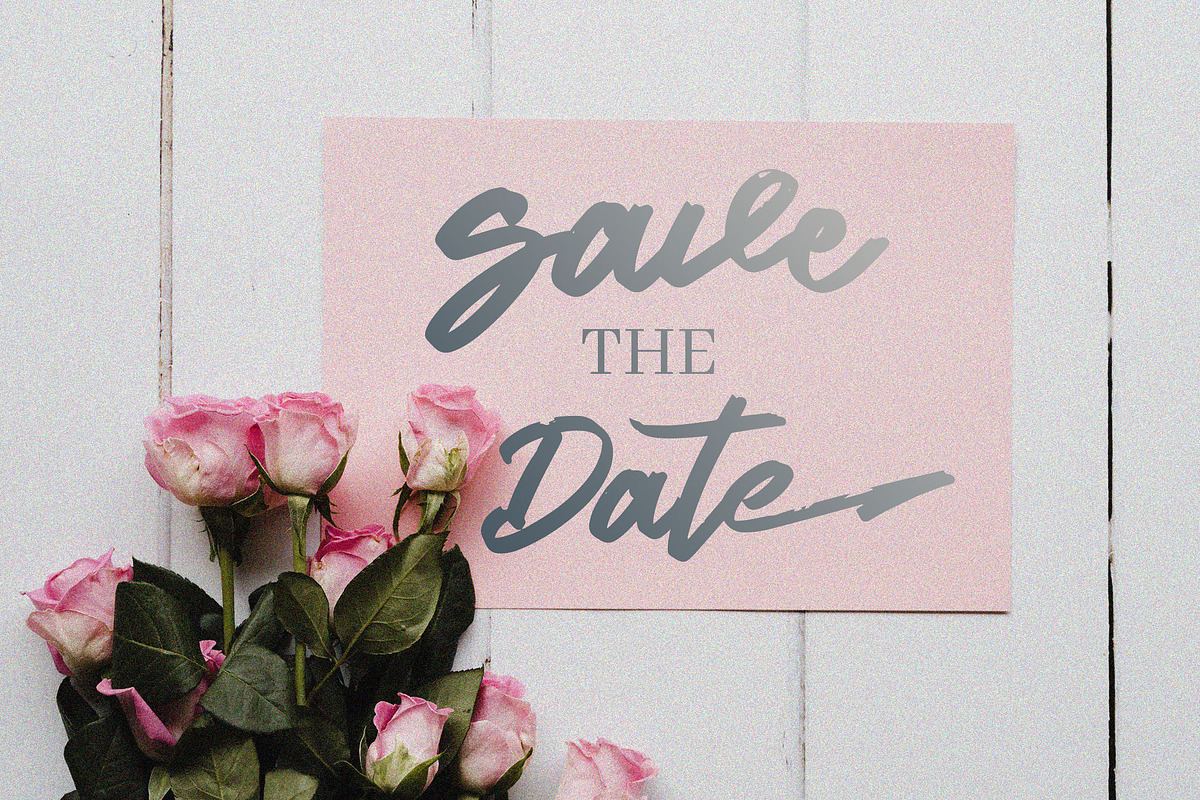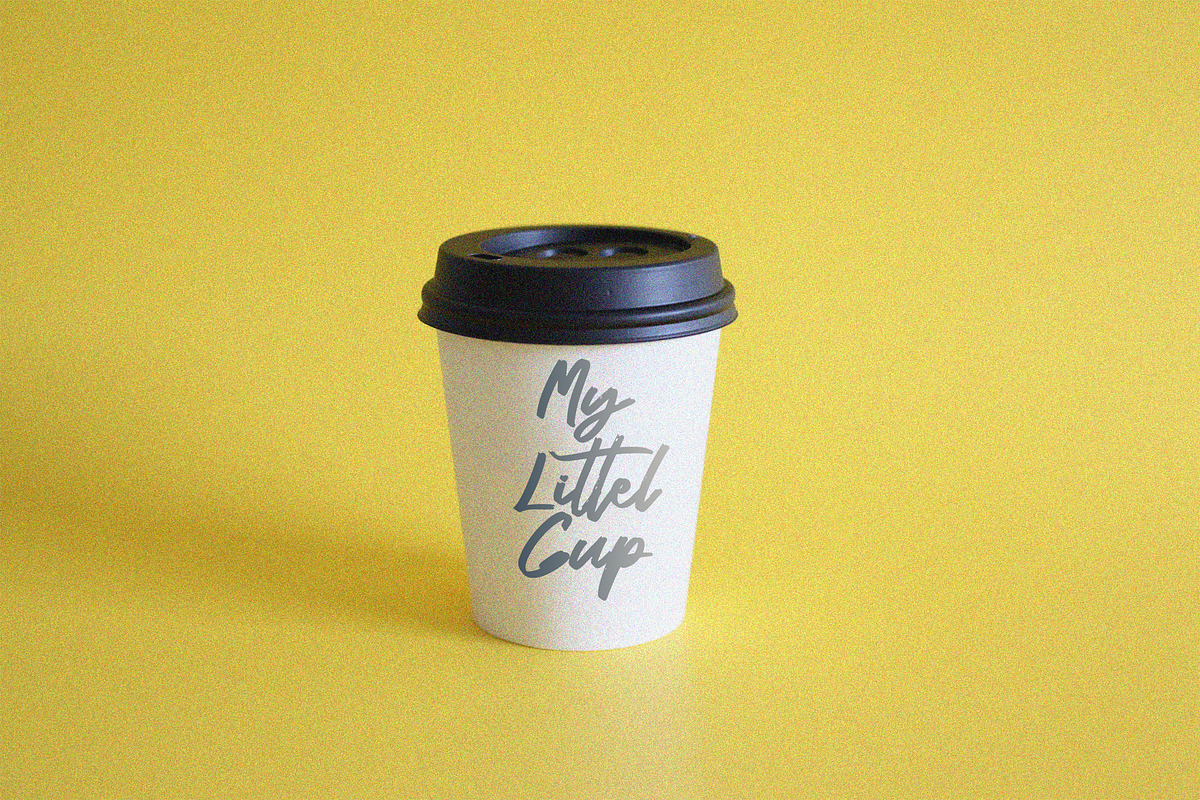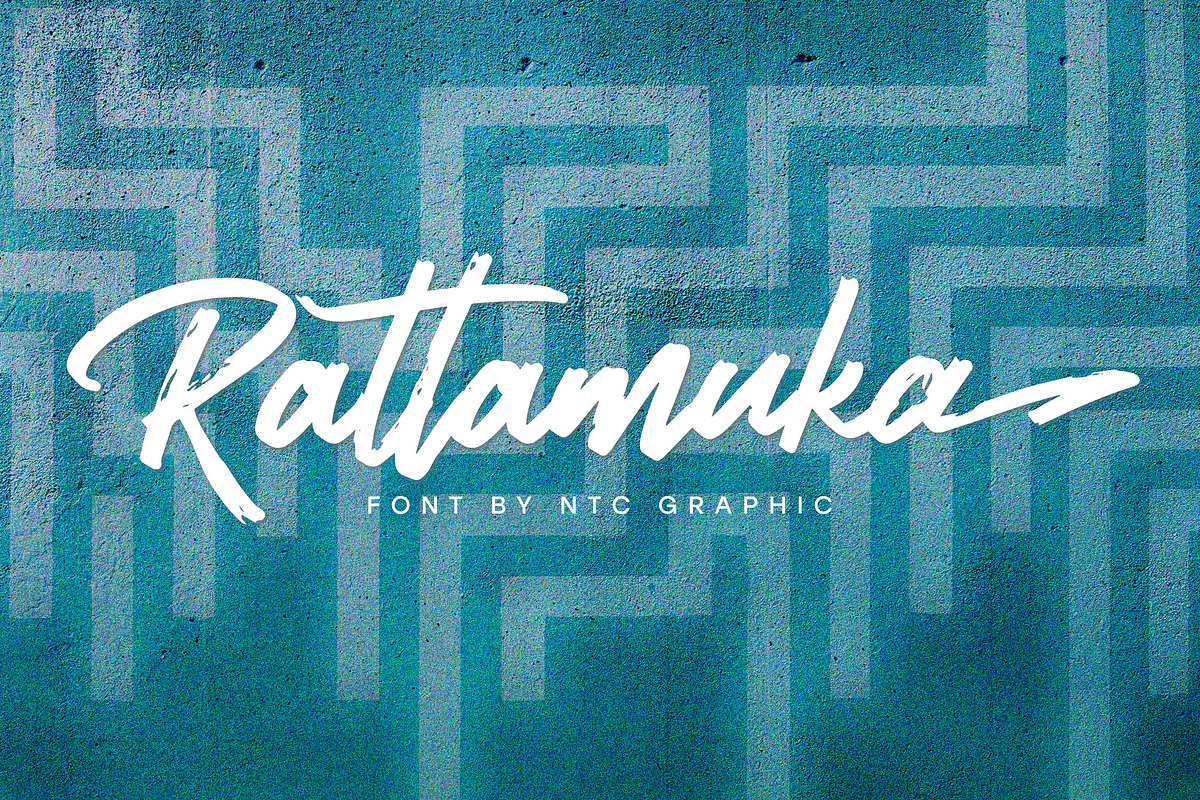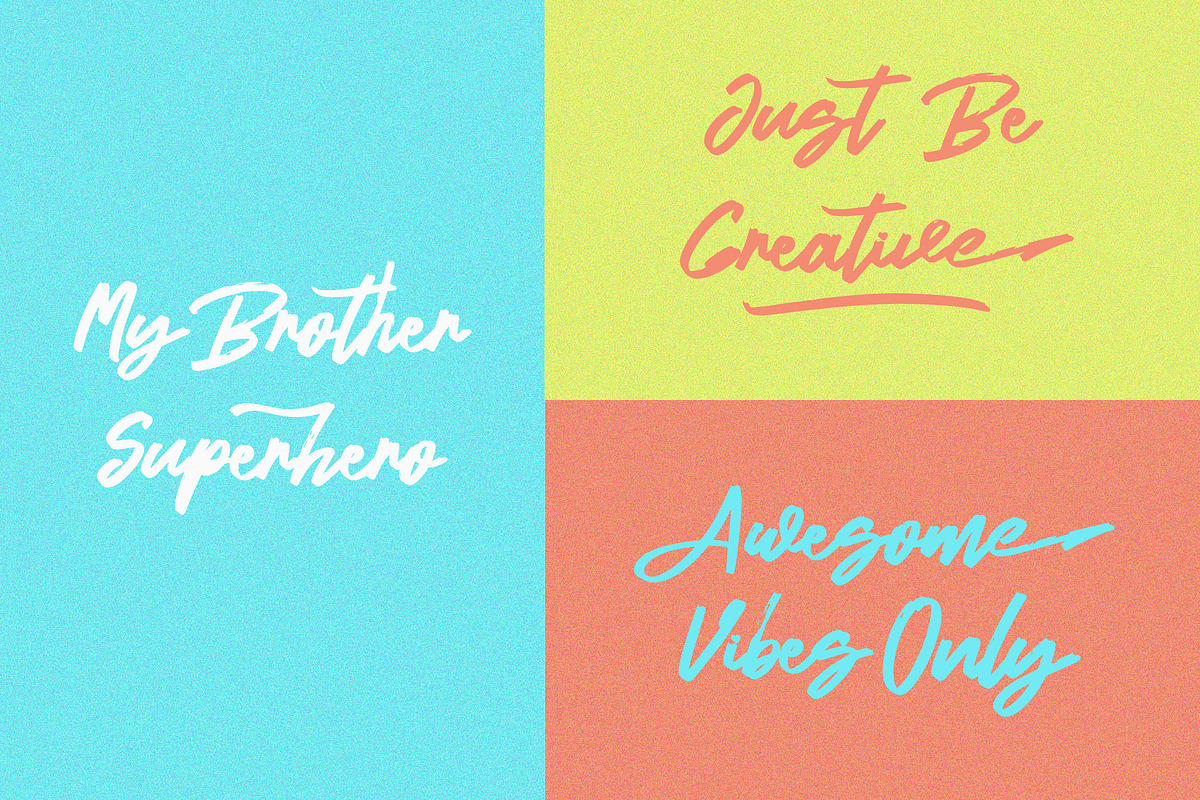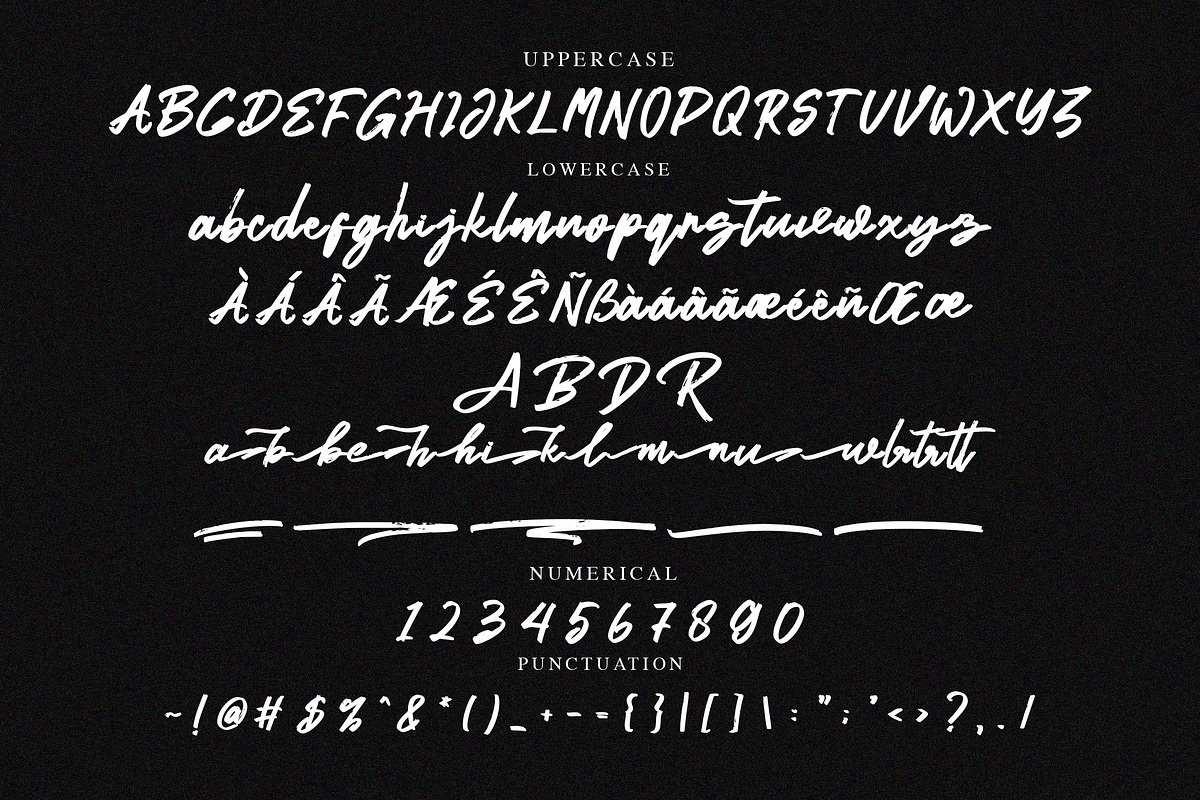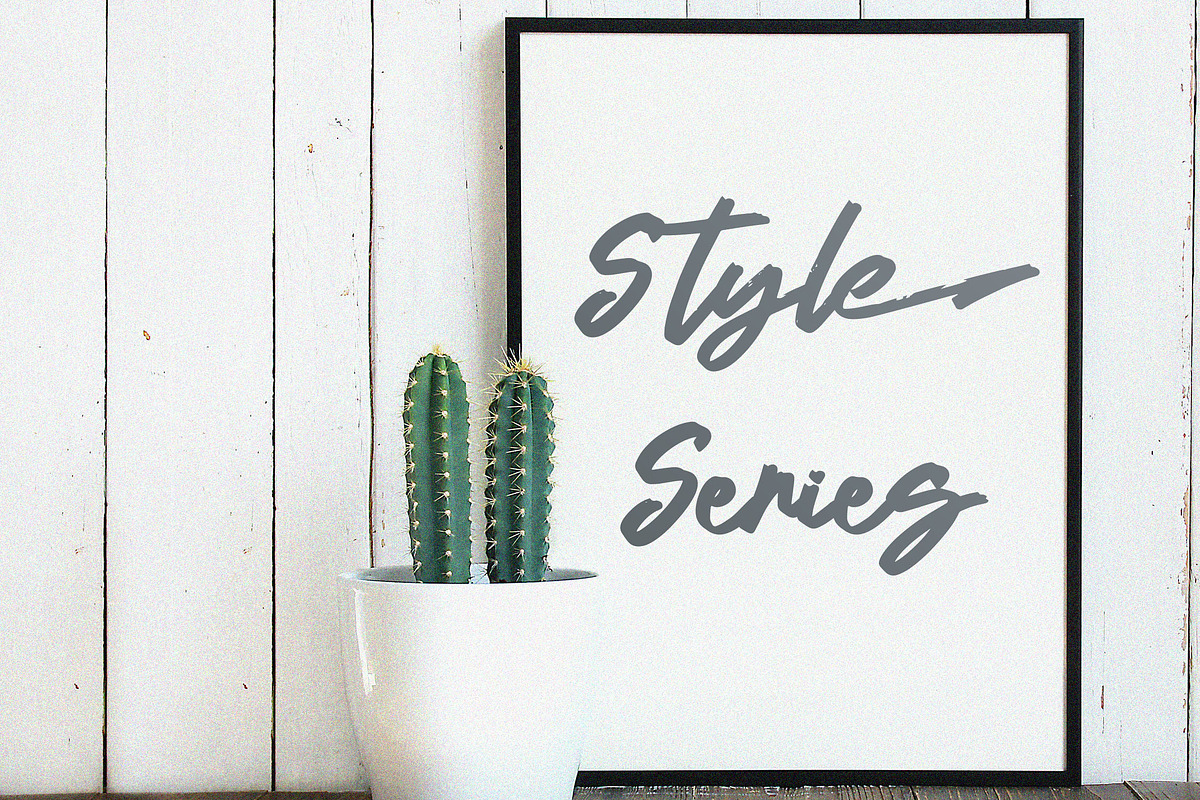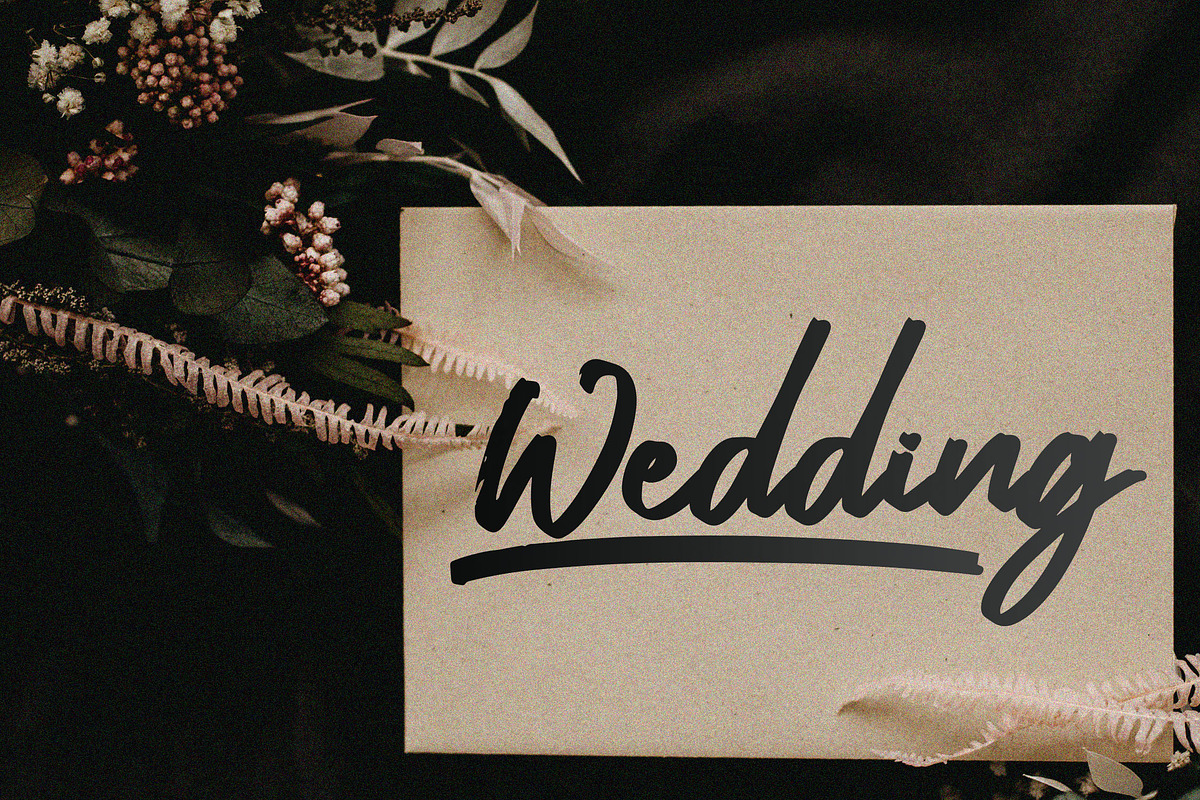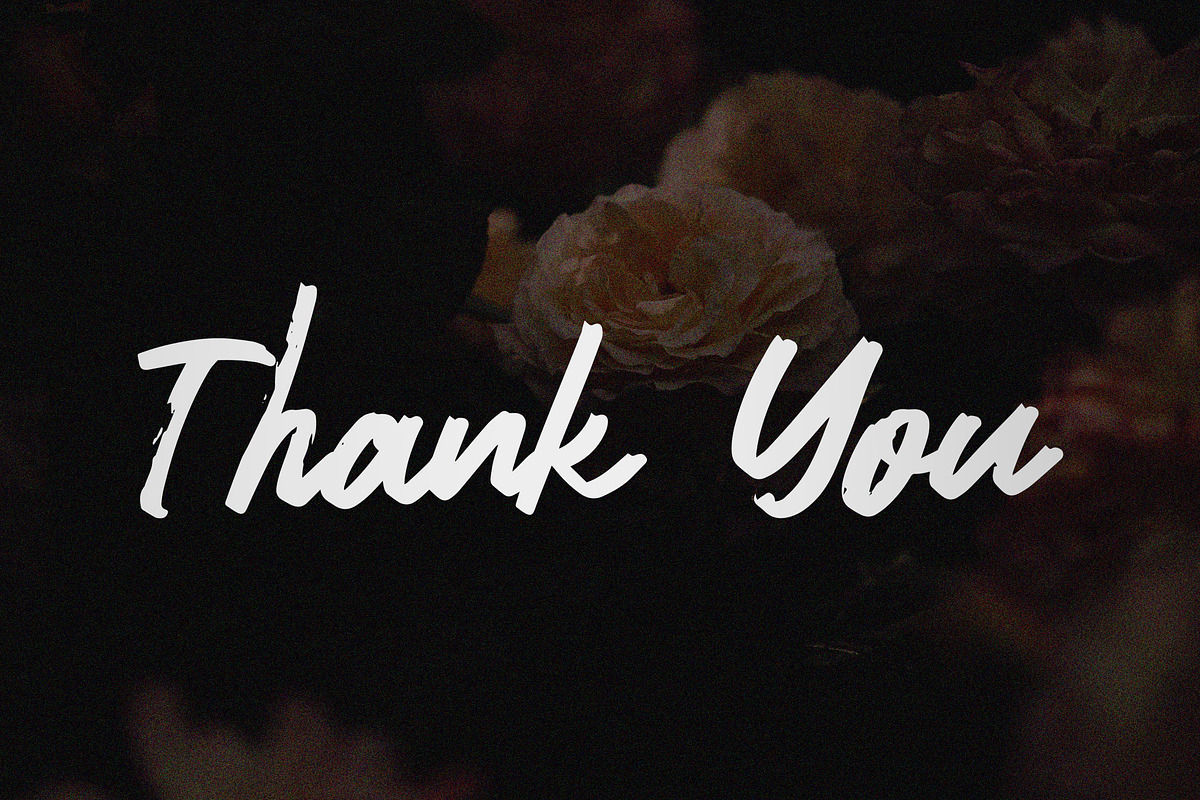
Rattamuka Brush Script Font
Rattamuka is a script font with handwritten brush style. Is a font style that is made with unique shapes font characters are really good. Can be applied to support the graphic appearance of the product to be more attractive.
- Stylistic Alternate